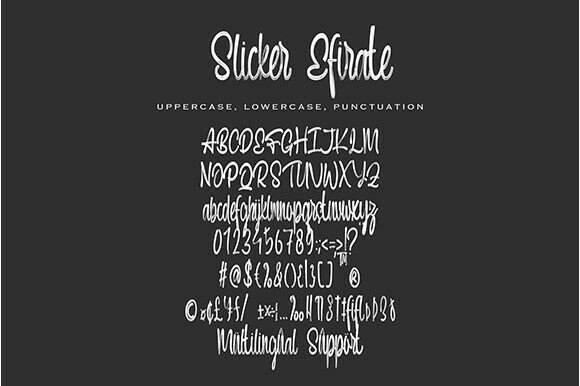
Introduction to Slicker Efirates Font
Slicker Efirates is a modern handwritten script font with a smooth, stylish, and expressive personality.
Featuring flowing strokes, elegant curves, and a natural brush feel, this font is perfect for branding, logos, social media graphics, packaging, fashion projects, wedding designs, quotes, and modern typography needs Its clean yet artistic appearance gives a luxurious and contemporary touch while still maintaining a casual handwritten charm.
Key Features of Slicker Efirates Font